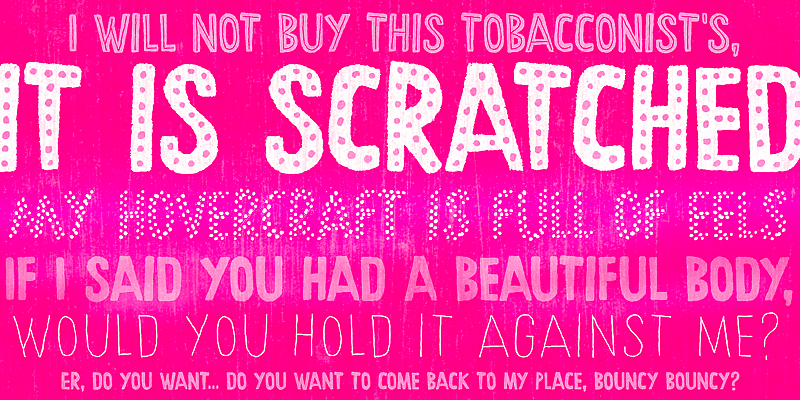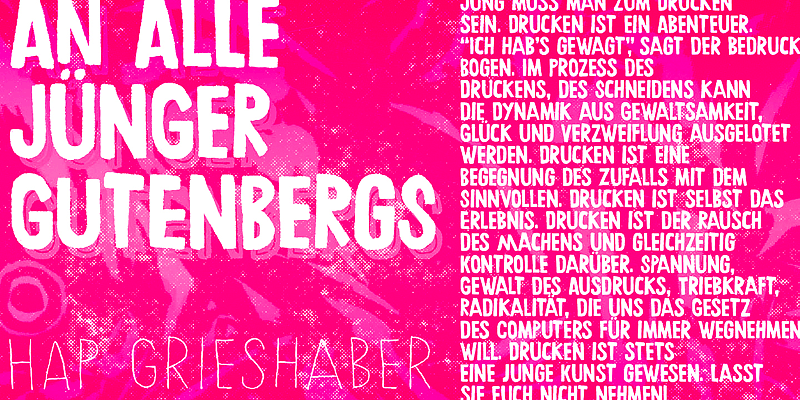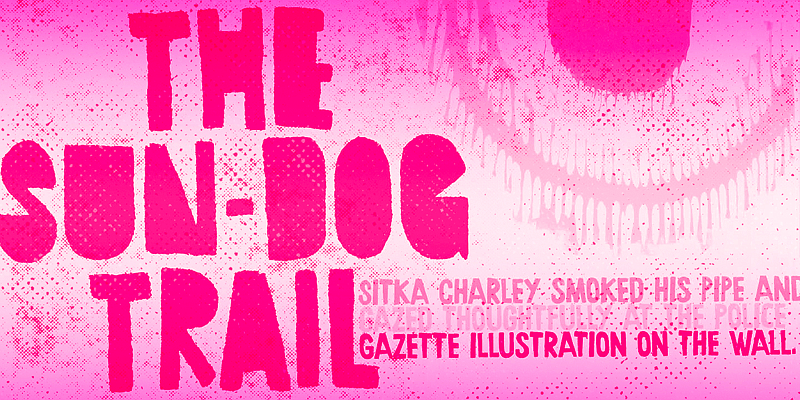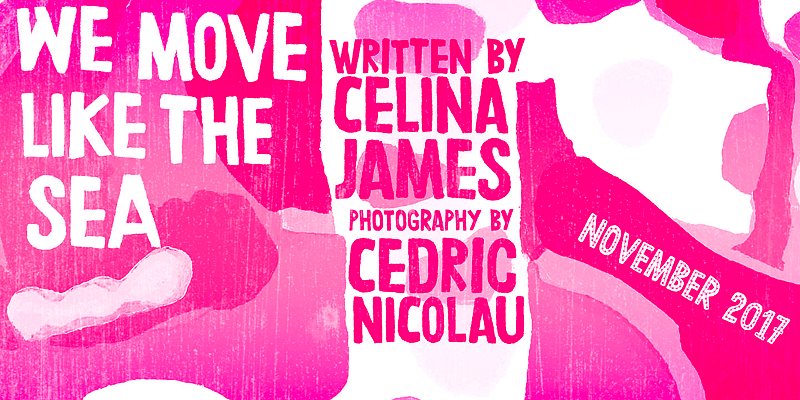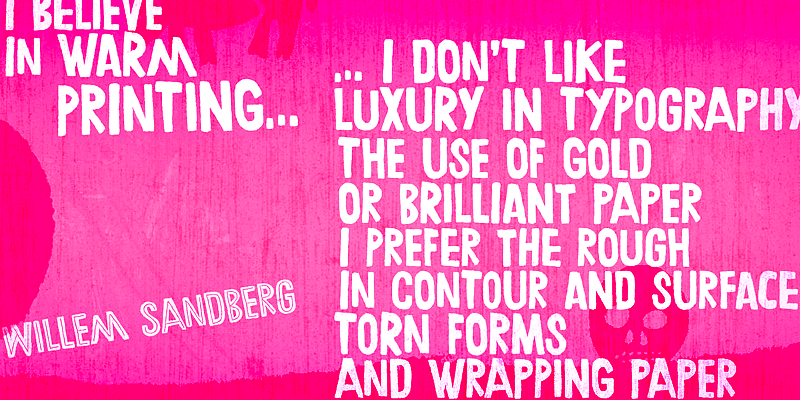
Chronic is a decorative, hand-lettered sans serif. A friendly all-cap design initially inspired by the art of HAP Grieshaber but includes some elements by Willem Sandberg, too. Two artists who lived through two world wars, struggled for freedom, and consistently manifested their love of liberty with words, works, and actions. Black, Dots, Dotted, Inline, Line, and Regular, plus Extras, too! This font family is perfect for packaging, book jackets, and posters!